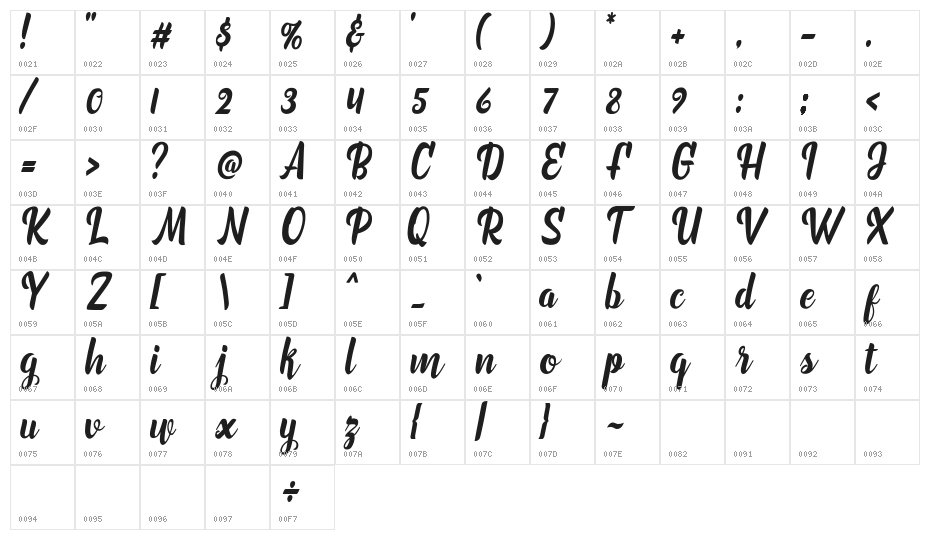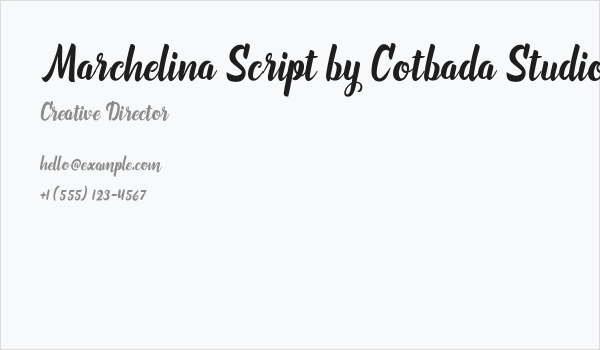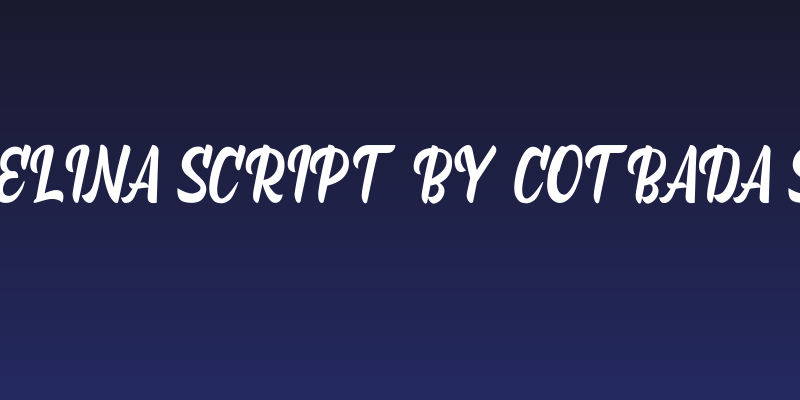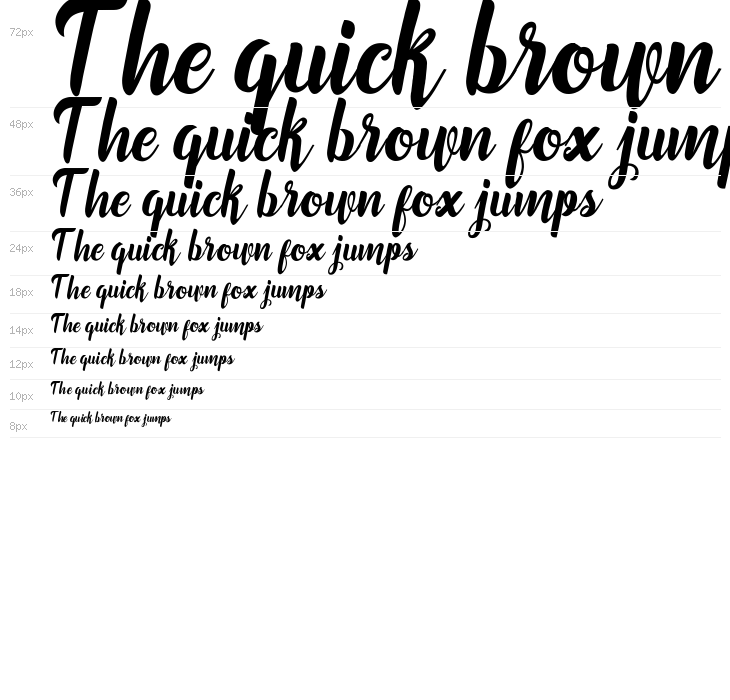
Marchelina Script by Cotbada Studio Font
Marchelina Script by Cotbada Studio Description
This script font exudes elegance and fluidity, characterized by its smooth, flowing lines and cursive style. The uppercase letters are bold and slightly slanted, giving a sense of movement and grace. The lowercase letters maintain a consistent style, with loops and curves that enhance its handwritten appearance. The numerals are equally stylized, matching the overall aesthetic of the alphabet. Special characters are included, maintaining the same decorative flair. This font is ideal for projects that require a touch of sophistication and personality.
| Proposed Projects | Ideal for wedding invitations, branding, logos, and greeting cards. |